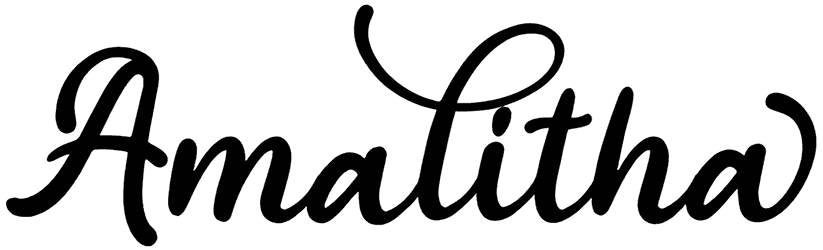
Amalitha Font
Keep in touch with us, innate artistic effects with the breathtaking, delicate face of Amalitha, bring immense prominence to your schemes of posters, greeting cards, invitations, or others to connect them with a naturalistic mood.
With a simple check out in our feminine tattoo font collection, your typography will blaze brightly. No harm done, the lack of numbers would not even be a problem, so try out and assemble charming outcomes.